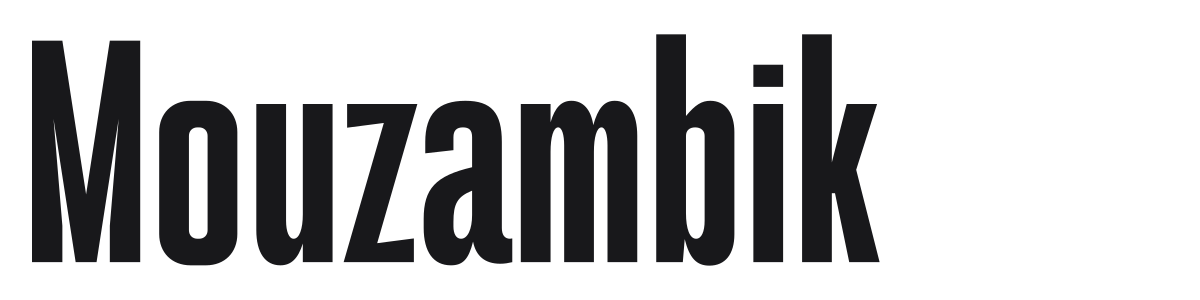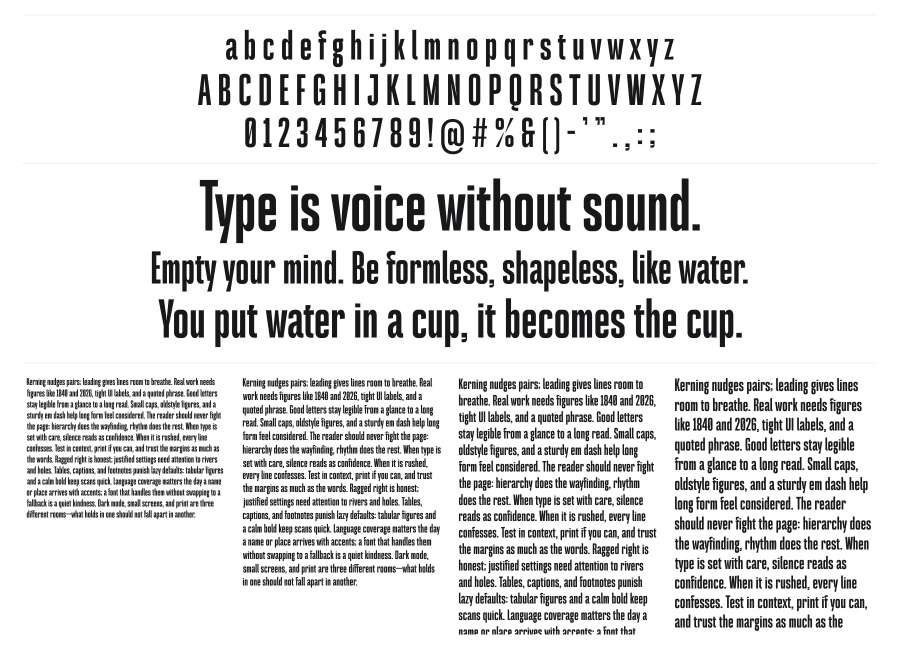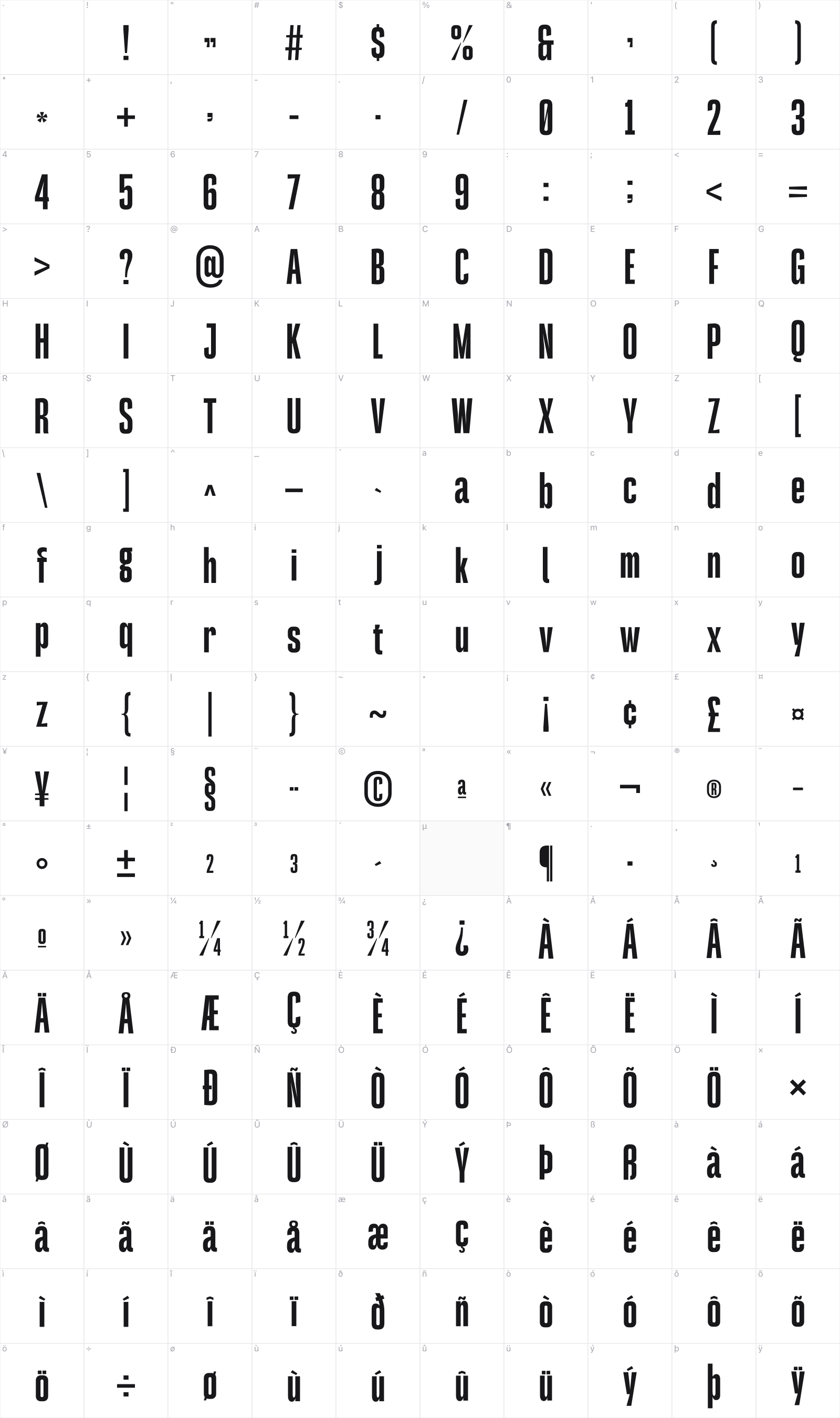
Mouzambik
Mouzambik is a heavy condensed grotesque sans with extreme narrow proportions and a bold, commanding presence. The tight spacing and dense texture make it built for headlines, posters, and display settings where impact matters. Its clean grotesque construction keeps it versatile across branding and editorial contexts.